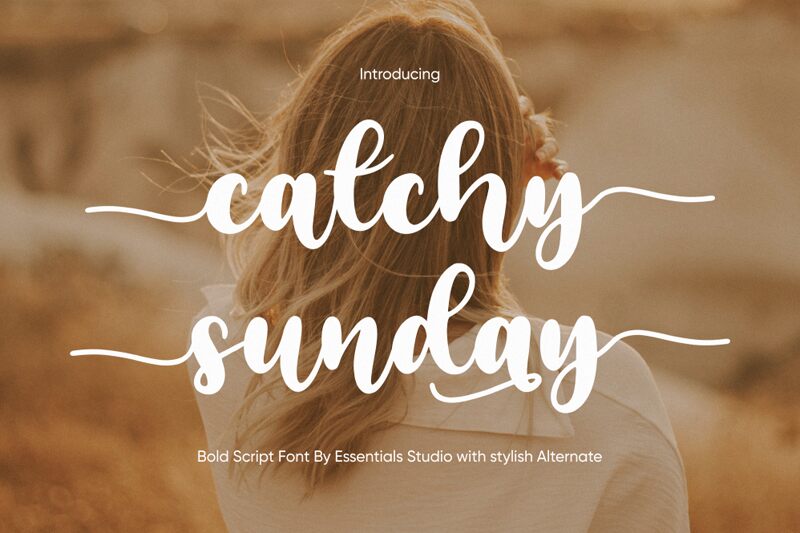
Catchy Sunday font By Essentials Studio catches attention by giving elegant solutions to all purposes. Catchy Sunday is one of flowing brush fonts written in fast motion using a wet brush pen for your fancy, generic purpose. Casual style aligned with classic and sophisticated letterform produce the natural flow of handwriting in each word without breaking a sweat.
It's bold style perfect for any Display graphic design, such as product packaging and logotype. It can also be used in any variety of fashion catalogs and lookbook, Invitation, Wedding Design project even book covers!